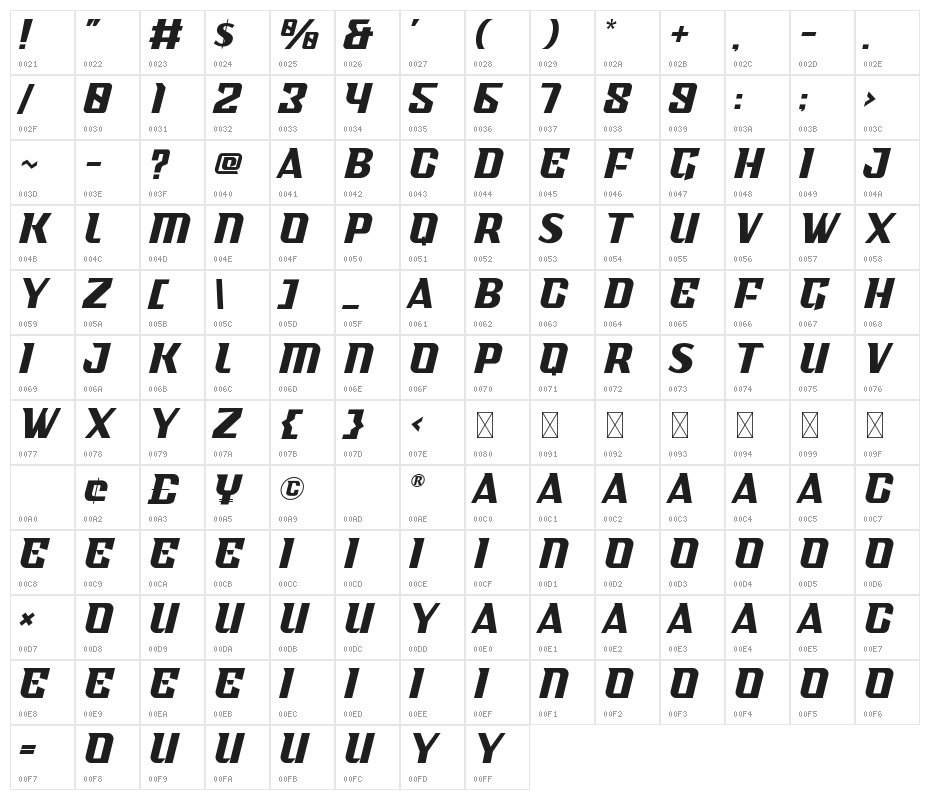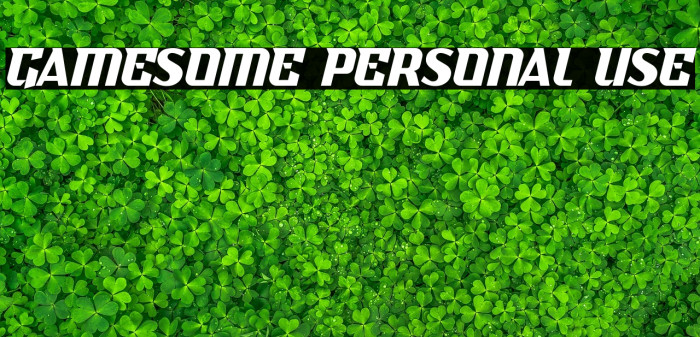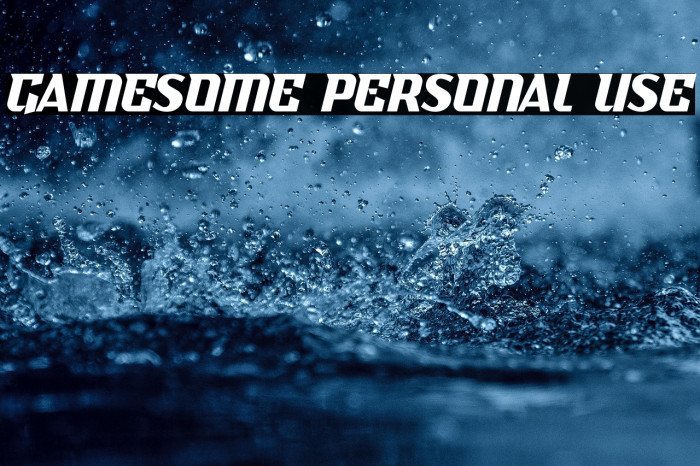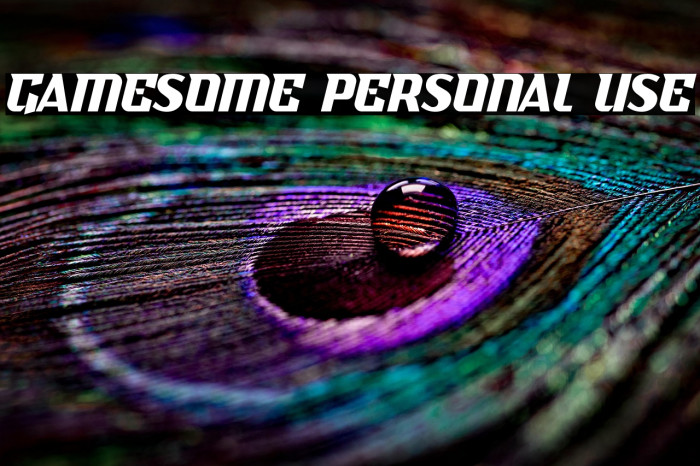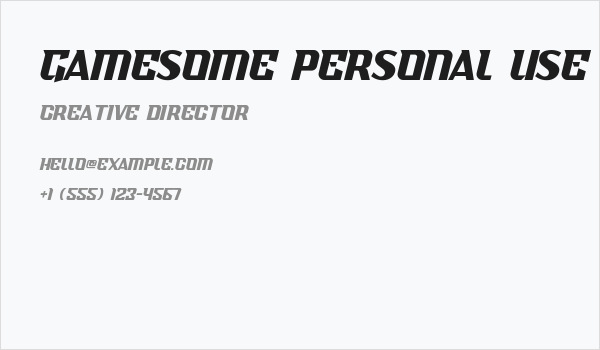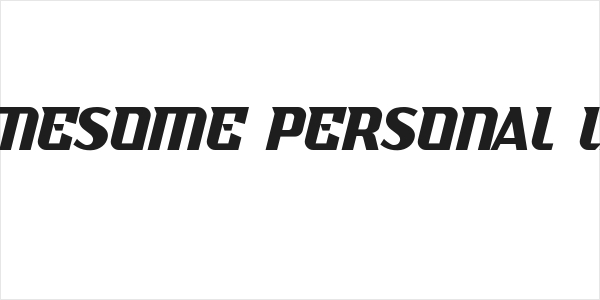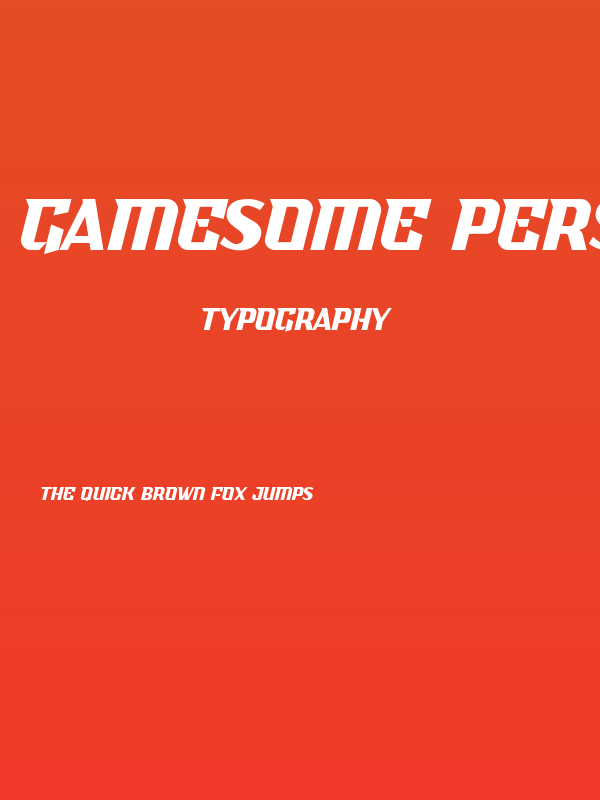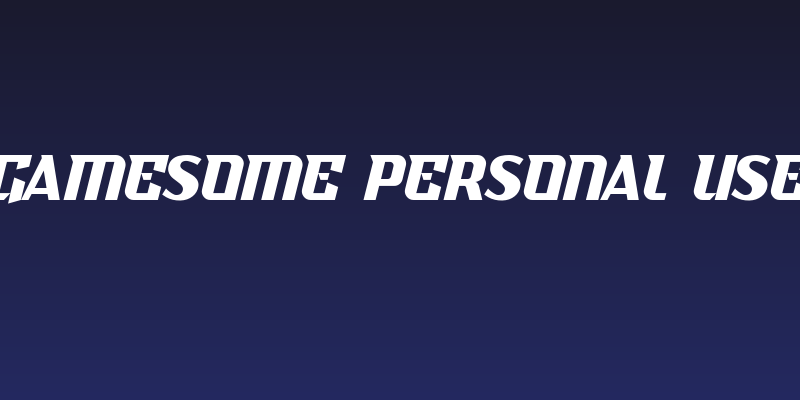
Gamesome Personal Use Font
Gamesome Personal Use Description
A bold, angular font with a modern and dynamic style, featuring sharp edges and a slanted orientation.
| Overall Style | Modern, Dynamic |
| Proposed Projects | Sports branding, video game titles, dynamic posters. |